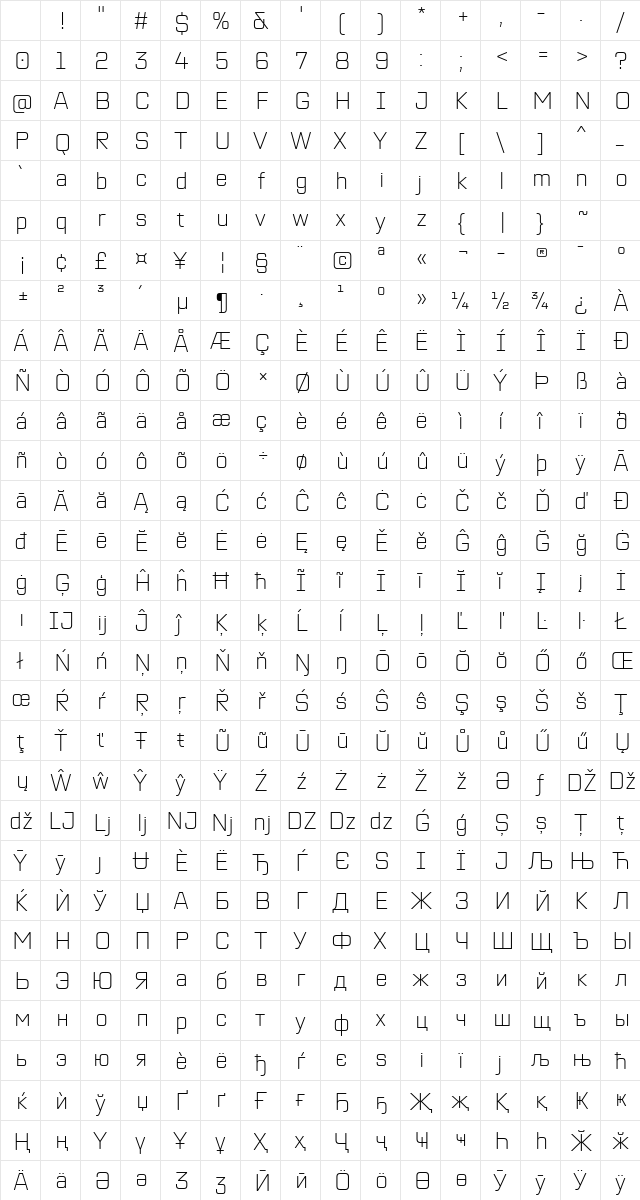
Complete TT Lakes Neue Trial ExtraLight glyph index. Displaying only characters natively supported by TT Lakes Neue Trial ExtraLight font.
TT Lakes Neue Trial is a composed and adaptable typeface that performs quietly and consistently across a wide range of design contexts. Its slender proportions lend an understated elegance to any composition.